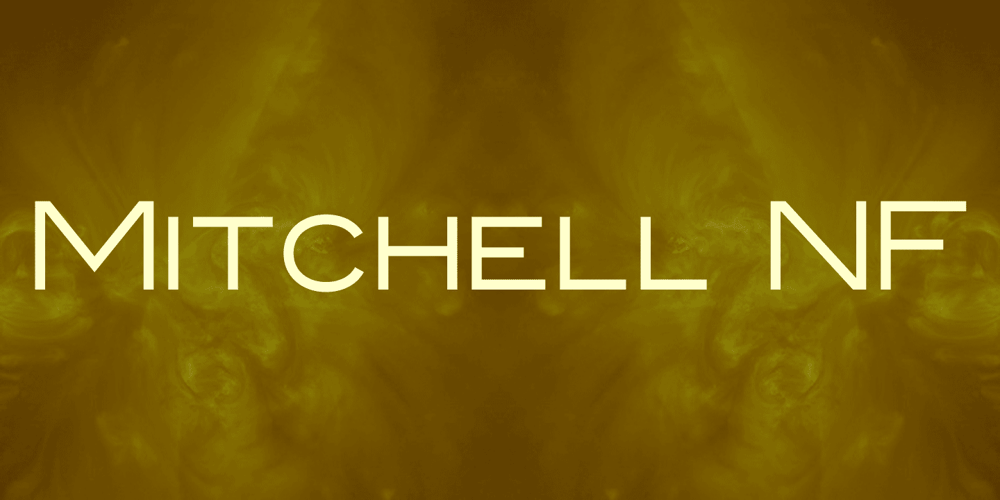
Mitchell NF Font Family was designed by Nick Curtis and published by Nick’s Fonts. Mitchell NF contains 1 styles and family package options. Mitchell was released by Inland Type Foundry in 1906 as a bolder version of their popular sans, Blair. This revival is faithful to the original, and is quite handy for both formal and informal use. Both flavors of this font feature the 1252 Latin, 1250 Central European, 1254 Turkish and 1257 Baltic character sets.